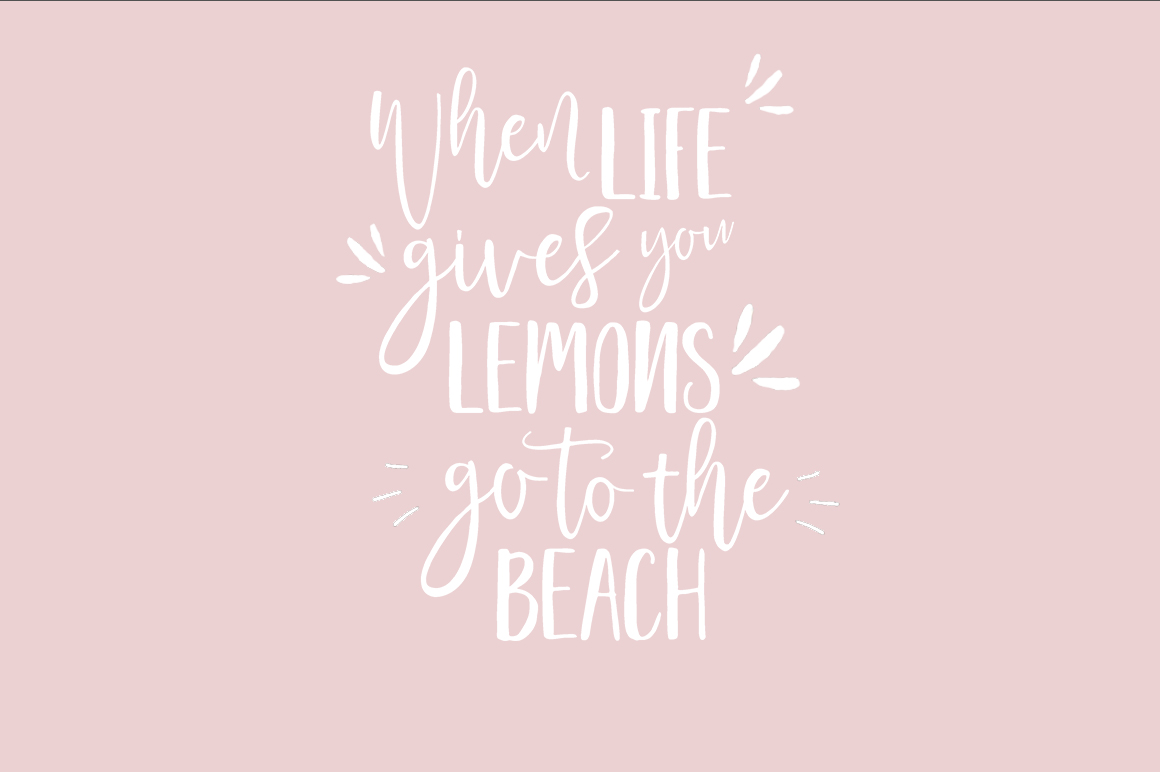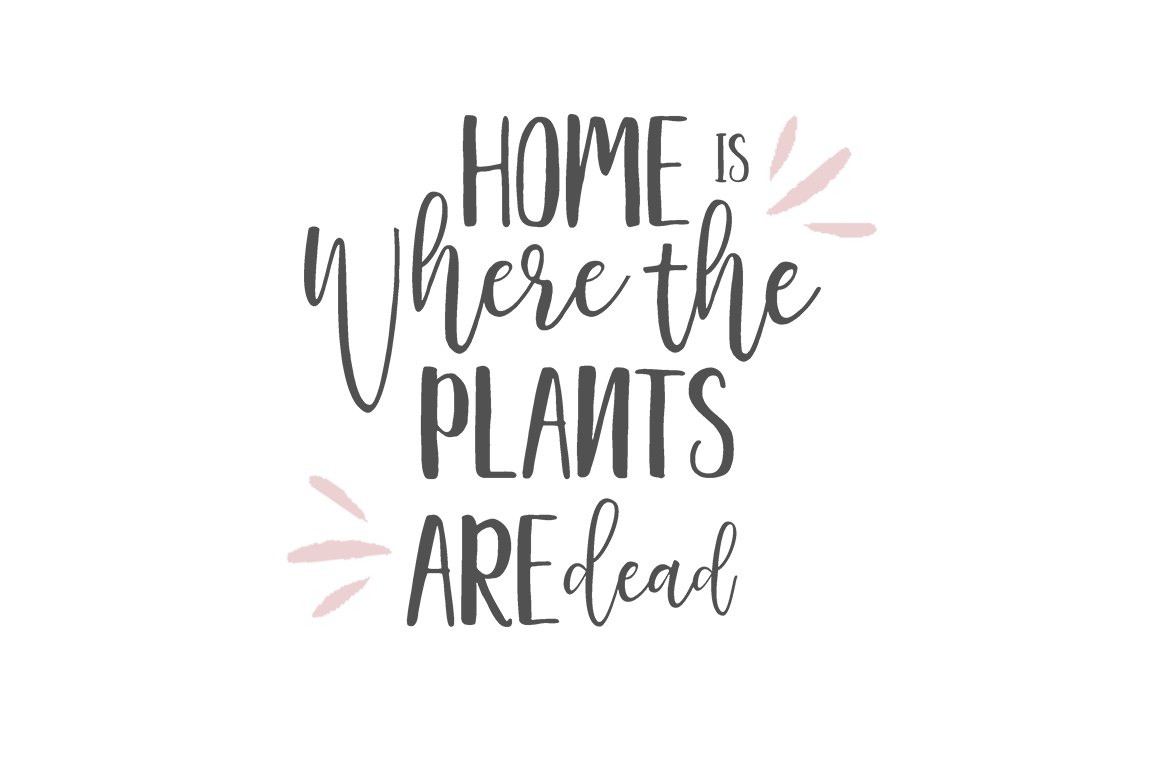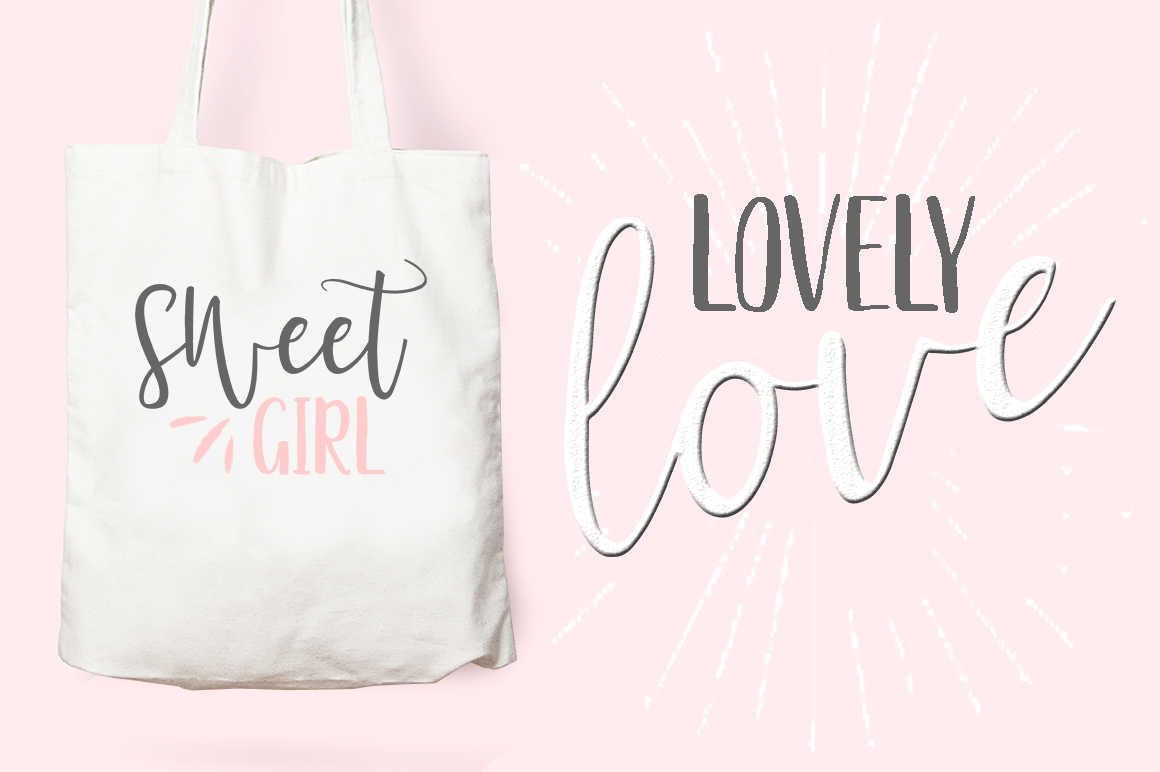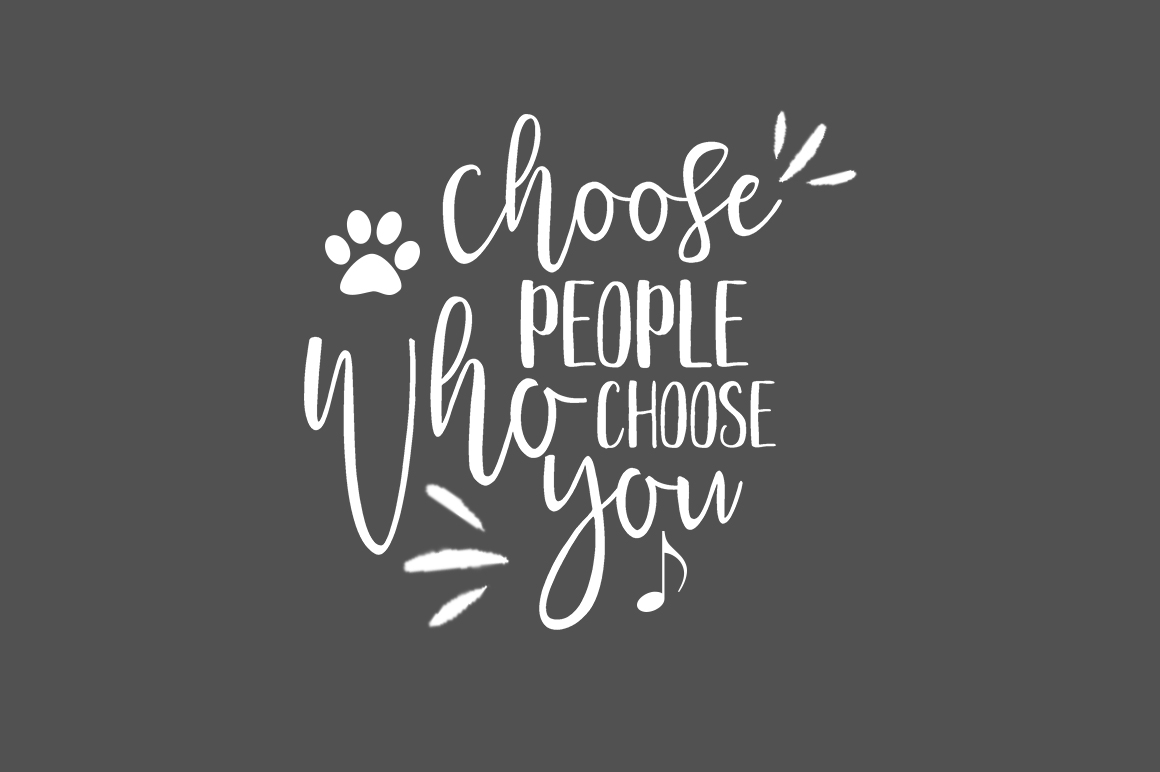
Introduction to Nathain Font Font
Fonts play a crucial role in design, and the Nathain Font font is a typeface that brings both character and versatility to any project. Whether you’re working on a branding project, a website, or a print design, the Nathain Font font offers a unique style that can elevate your work.
Nathain is a hand-brushed font created on paper with a brush and ink.
It features an irregular baseline which make the font flow up and down on the screen .
Key Features of Nathain Font Font
The Nathain Font font is more than just a typeface – it’s a design tool that helps you communicate your message with style and clarity. Its unique character set and versatile design make it suitable for a wide range of applications, from elegant invitations to bold headlines.
With its carefully crafted letterforms and balanced proportions, the Nathain Font font ensures readability and visual appeal across all mediums.
What makes Nathain Font font special?
The Nathain Font font stands out with its unique design, exceptional readability, and versatility across various design applications.